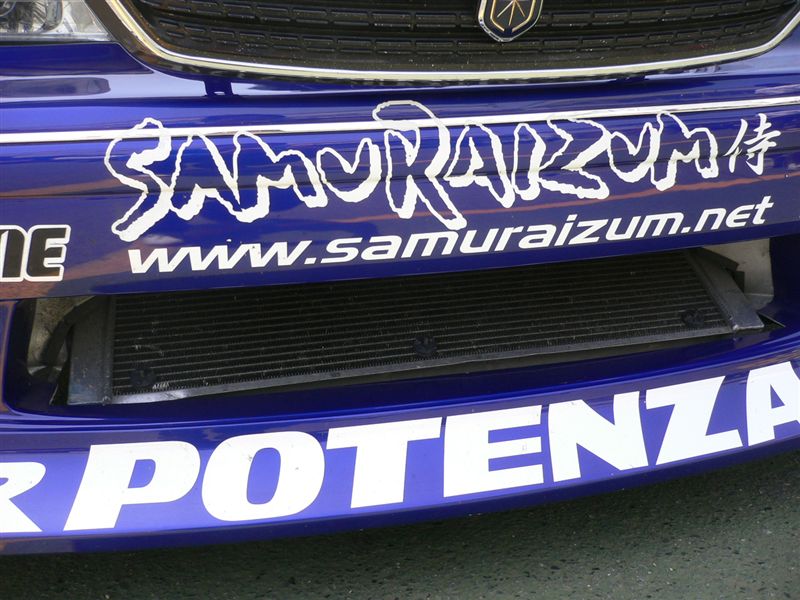
I need font of "SamuRaizum" and font of site under it... can't find anywhere.
The website appears to be Handel Gothic by Don Handel.
"r" is little bit diffrent in new version of Handel Gothic, I need old version of it with exact same "r" like on picture.
Looks like a match to me. The type is slightly stretched, which may be what's throwing you off.